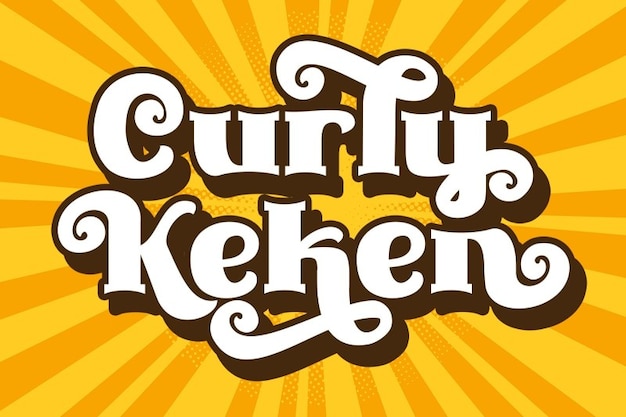
Curly Keken Font
Curly Keken is a cool, groovy font that exudes vintage charm with its whimsical, curly design. Inspired by retro aesthetics, its playful curves and bold forms create a sense of fun and nostalgia, making it perfect for posters, apparel, and branding that celebrate a carefree spirit. Curly Keken brings a vibrant pop of personality to any project, inviting creativity and joy in every letter.